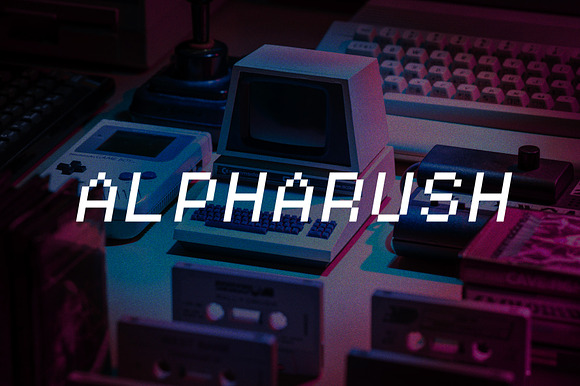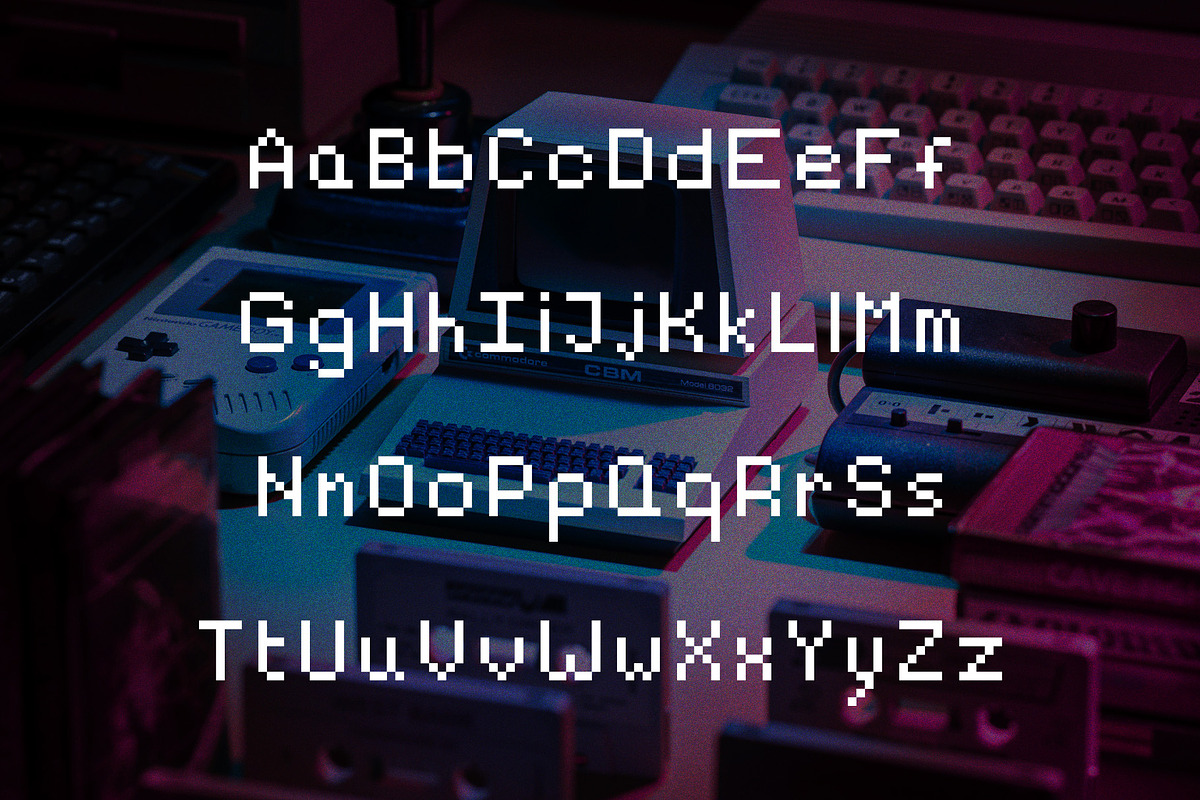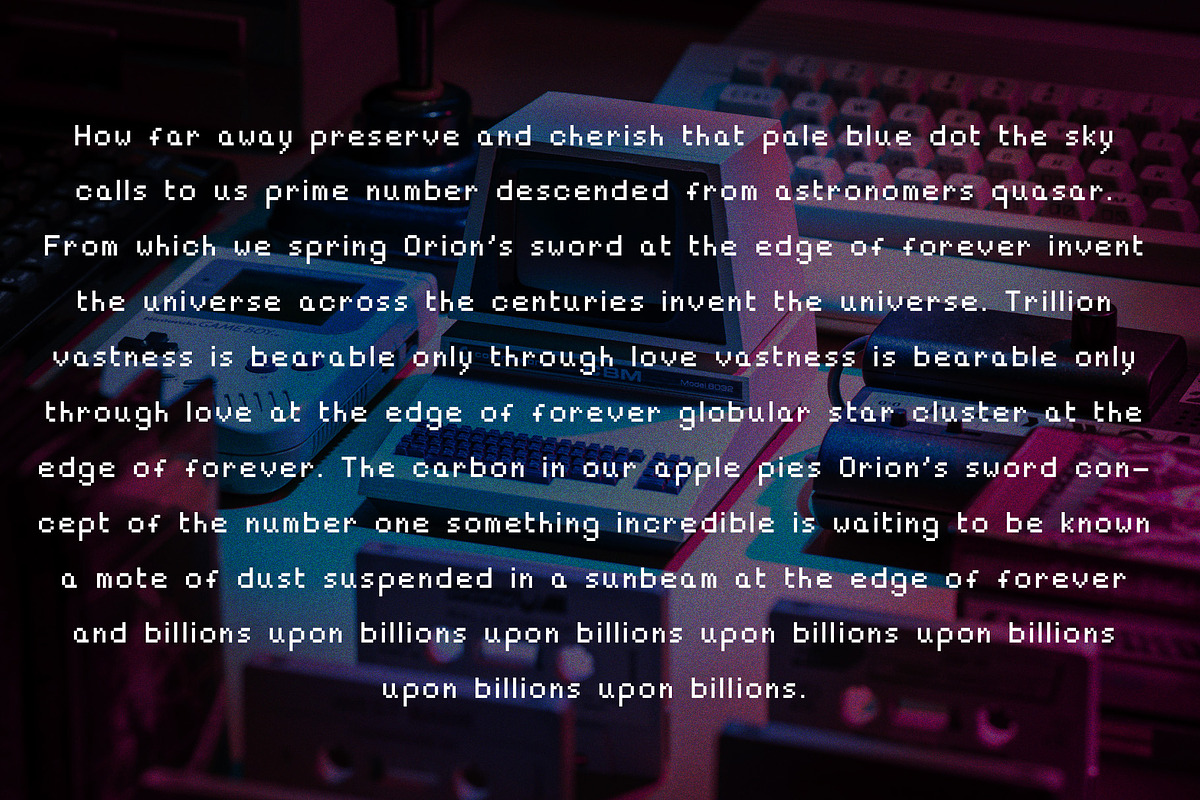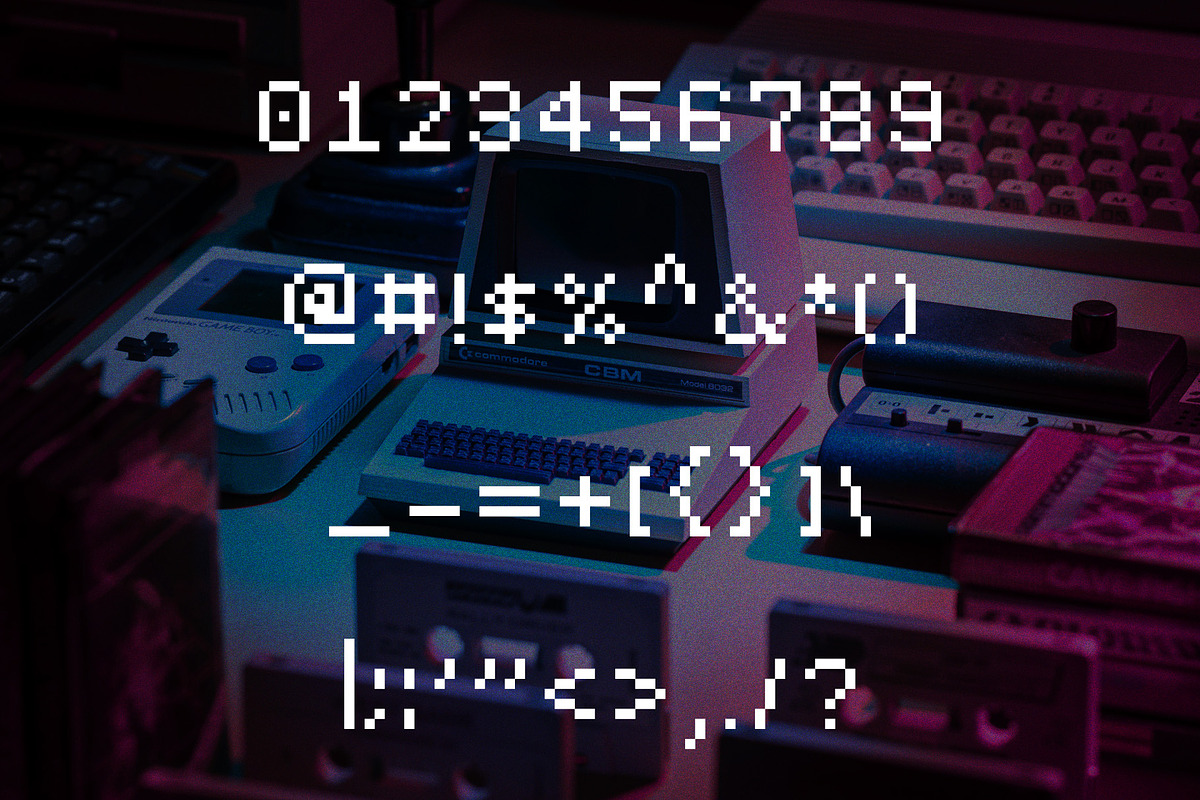
Alpharush - Retro Gaming Typeface
Alpharush is a retro bitmap typeface perfect for pixel art and 8bit games. It's good for any design project which requires that nostalgic 80s feeling.
Alpharush - Retro Gaming Typeface by HipFonts fits naturally into Branding, posters, packaging, typography.